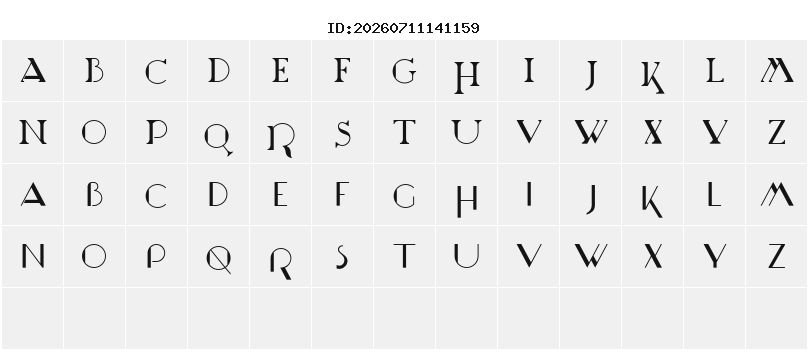
• Font Name: Marchesa
• Full Font Name: Marchesa
• Designer: Paulo R
• Description: Marchesa is a font by Paulo R, designed by Paulo R in 2013.
About Marchesa.otf
Marchesa.otf is a modern, elegant sans-serif font designed for ultimate readability and visual harmony. Perfect for branding, headlines, web design, and print materials.